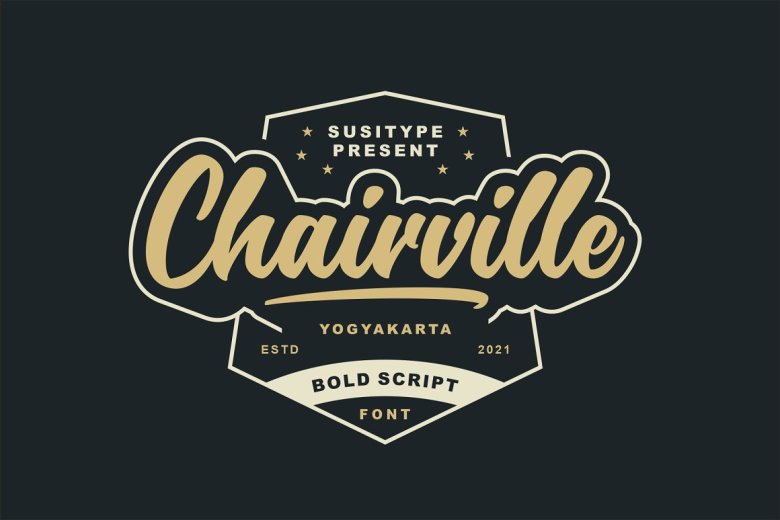
Chairville Font
Chairville is a stunning bold Handwritten Script, created simply by making your lettering looking more attractive as a hand-lettered design or human touch through styles 60s and 70s. This font says strong, this font says confident, this font says DYNAMIC and all of that can be your exact amount of nostalgia needed in your designs.
Chairville Handwritten Script Font